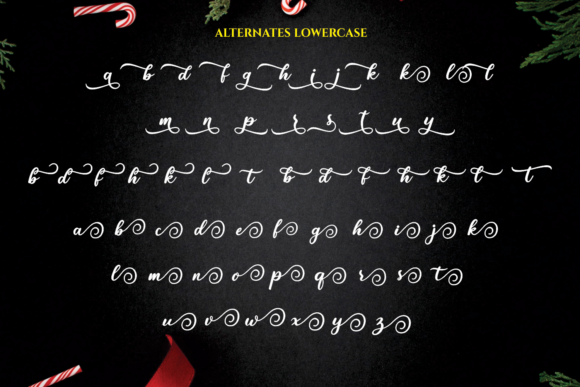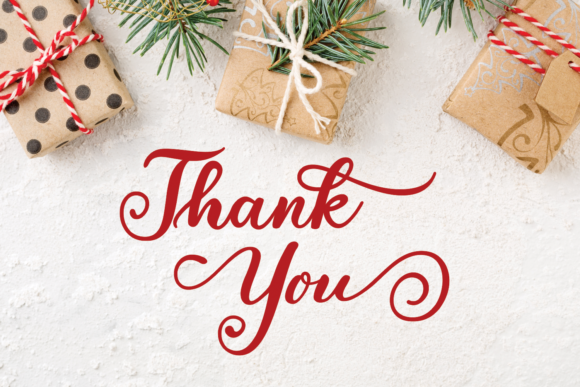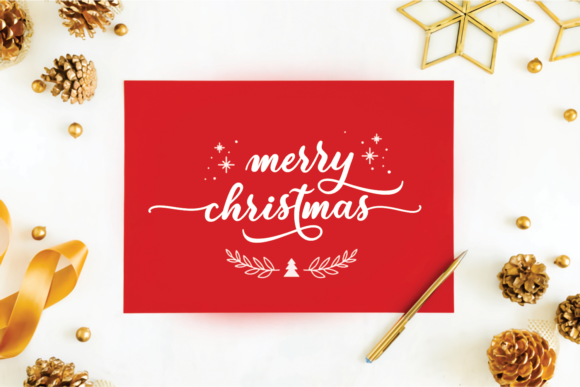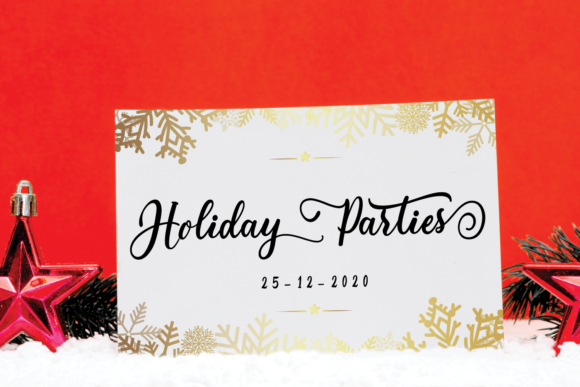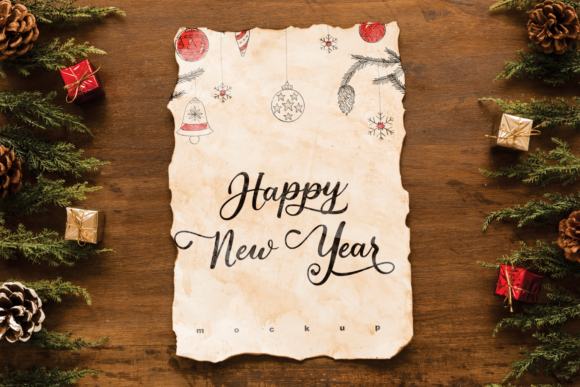
About Sparkling Christmas Font
Sparkling Christmas is an elegant, stylish and timeless handwritten font. It is ideal for holiday-themed greeting cards and for any crafting project that requires a romantic touch. This font is PUA encoded which means you can access all of the glyphs and swashes with ease!